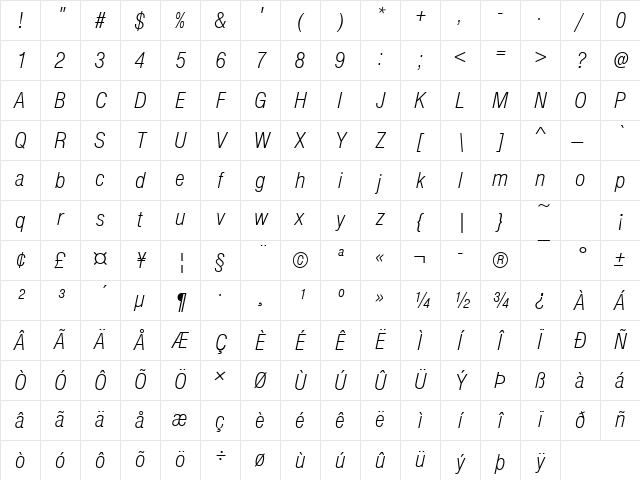
NimbusSanDLigCon Italic
NimbusSanDLigCon Family
NimbusSanDLigCon Italic
Complete NimbusSanDLigCon Italic glyph index. Displaying only characters natively supported by NimbusSanDLigCon Italic font.
Design Context for NimbusSanDLigCon
NimbusSanDLigCon is a composed and adaptable typeface that performs quietly and consistently across a wide range of design contexts. The slanted form adds forward momentum and visual energy.
Pro Tip: Use NimbusSanDLigCon for emphasis, pull quotes, and subheadings where its slanted energy can add rhythm to the layout.